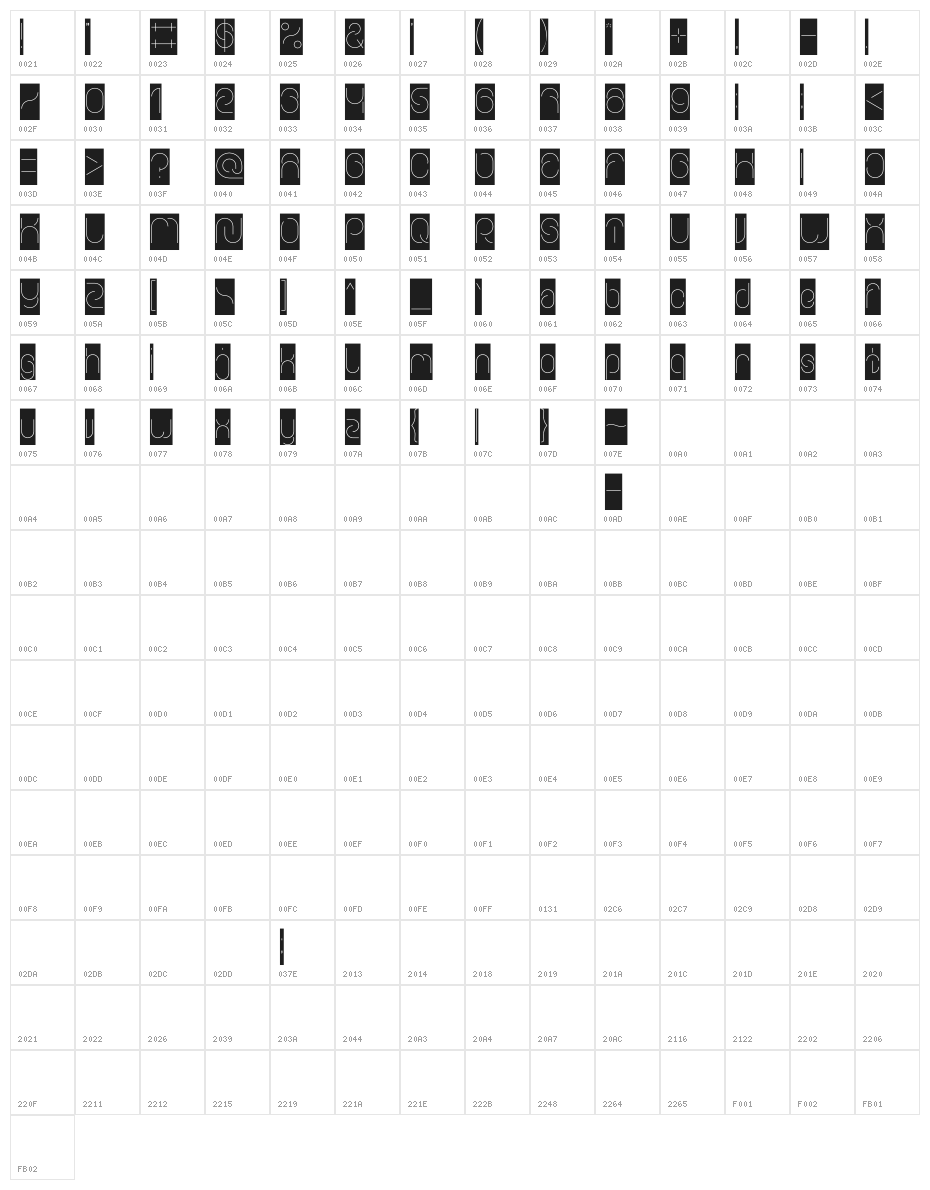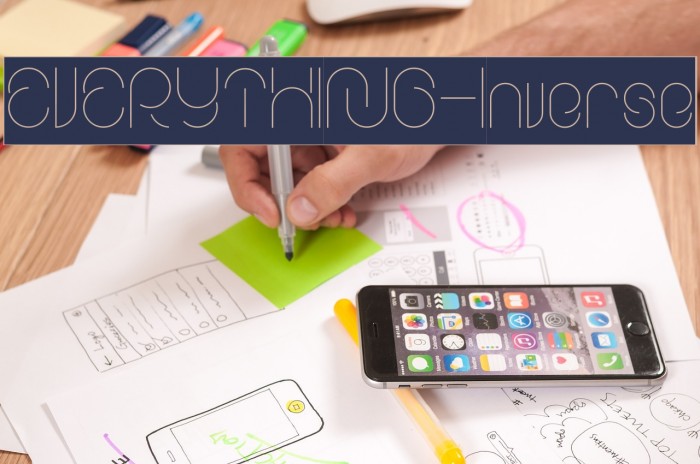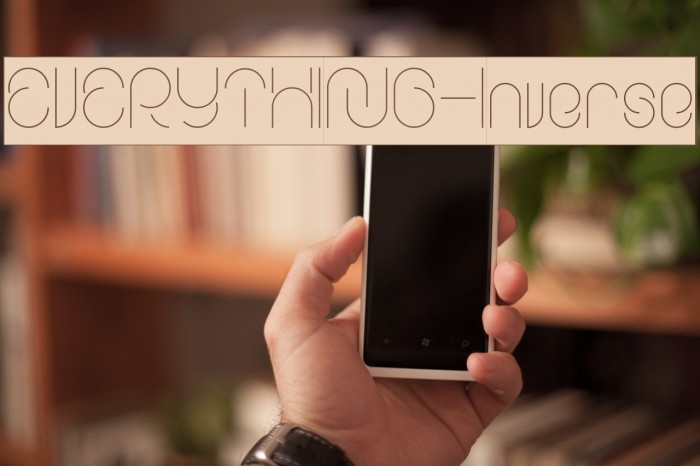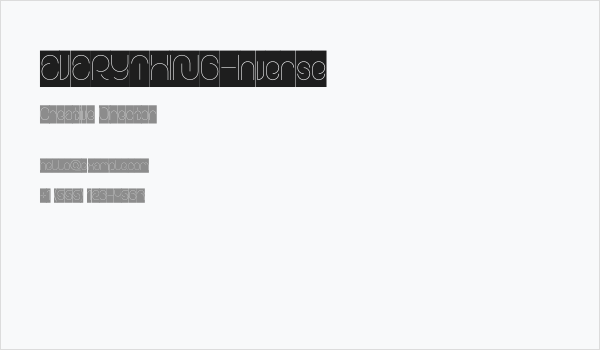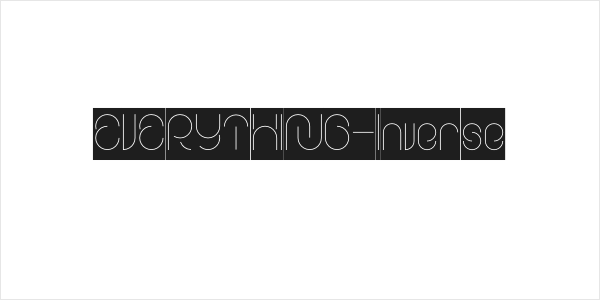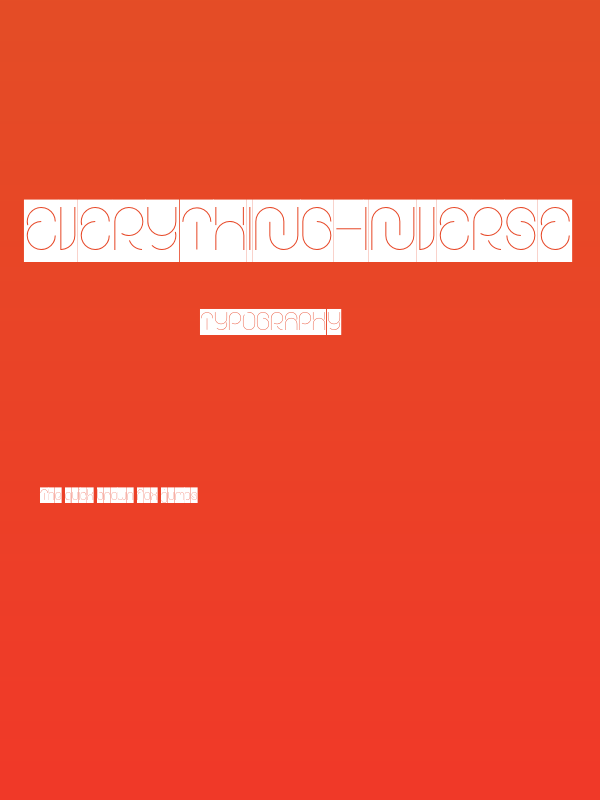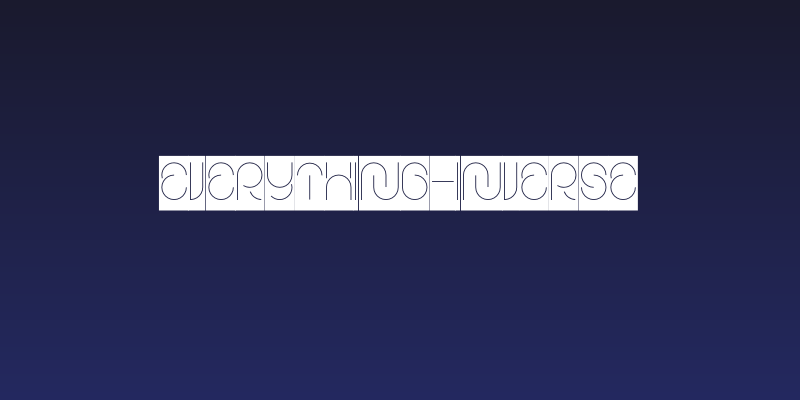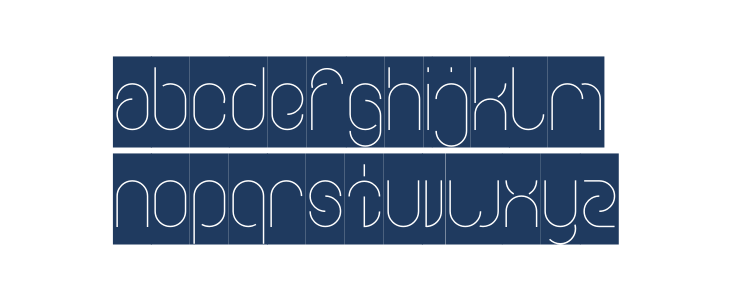
EVERYTHING-Inverse Font
EVERYTHING-Inverse Description
This font features a modern and sleek design with a futuristic aesthetic. Each character is composed of thin, continuous lines that create a sense of fluidity and movement. The letters are formed with a combination of curves and straight lines, giving them a unique geometric appearance. The uppercase and lowercase letters maintain a consistent style, while the numbers and special characters complement the overall design. The font's minimalist approach and clean lines make it suitable for contemporary projects that require a touch of elegance and sophistication.
| Overall Style | Futuristic and minimalist |
| Use Case | Logos, headlines, and digital interfaces. |
| Proposed Projects | Ideal for branding, tech-related designs, modern art projects, and minimalist posters. |